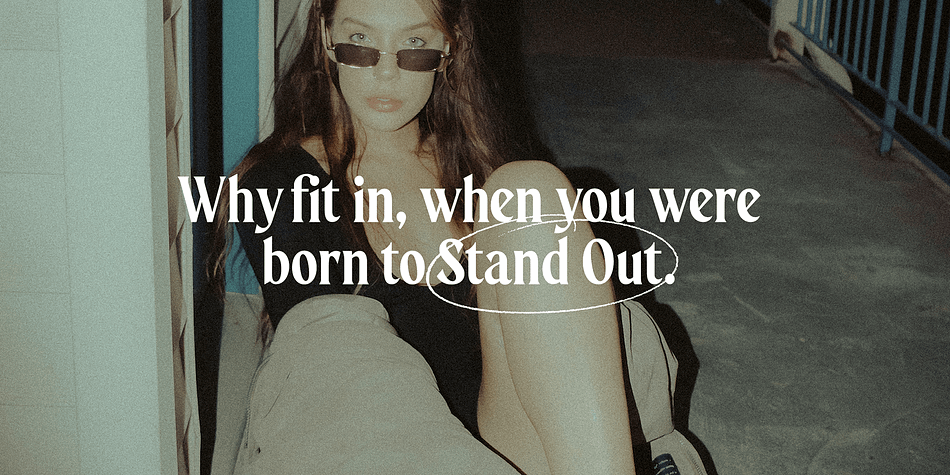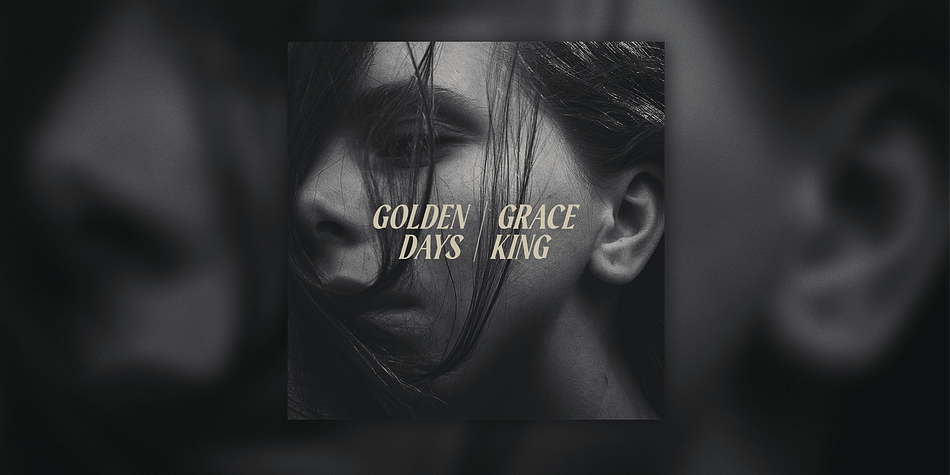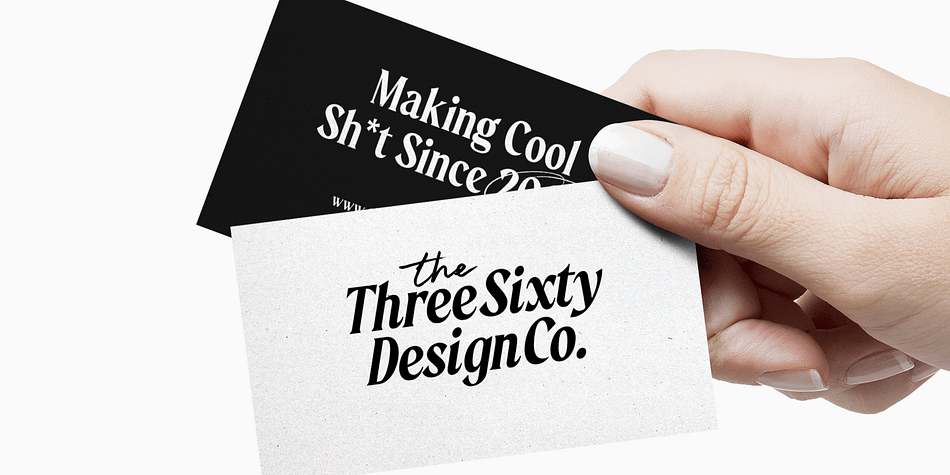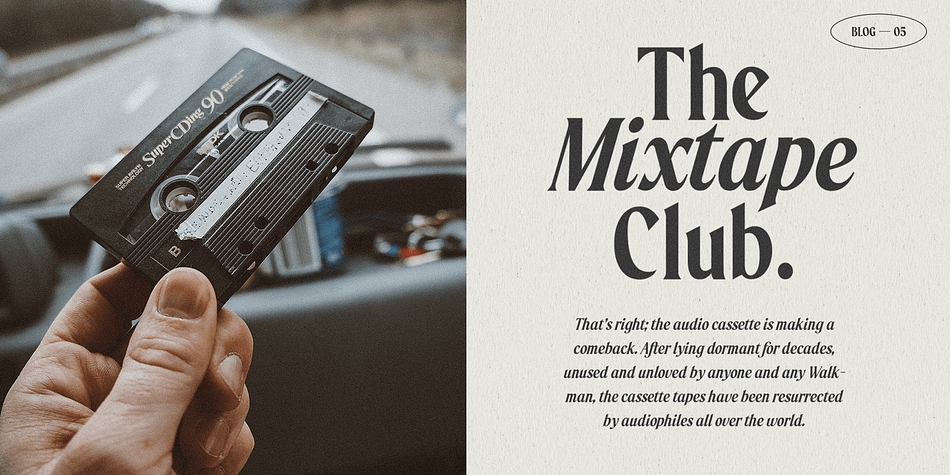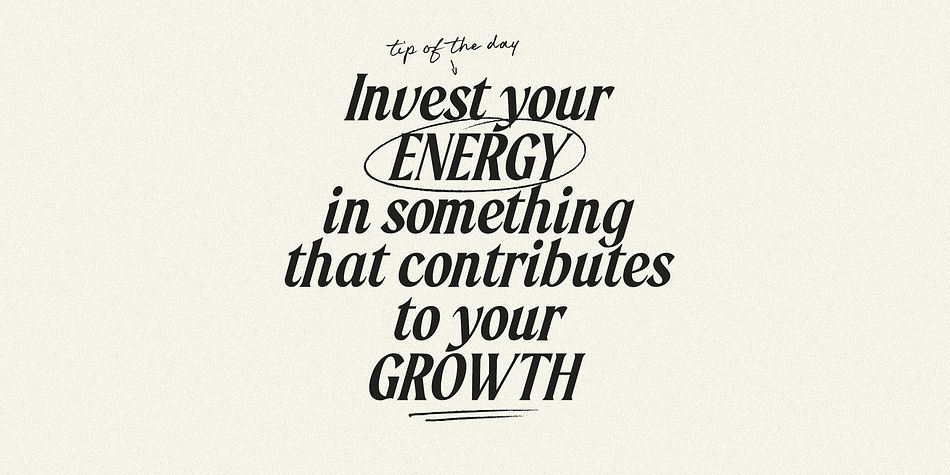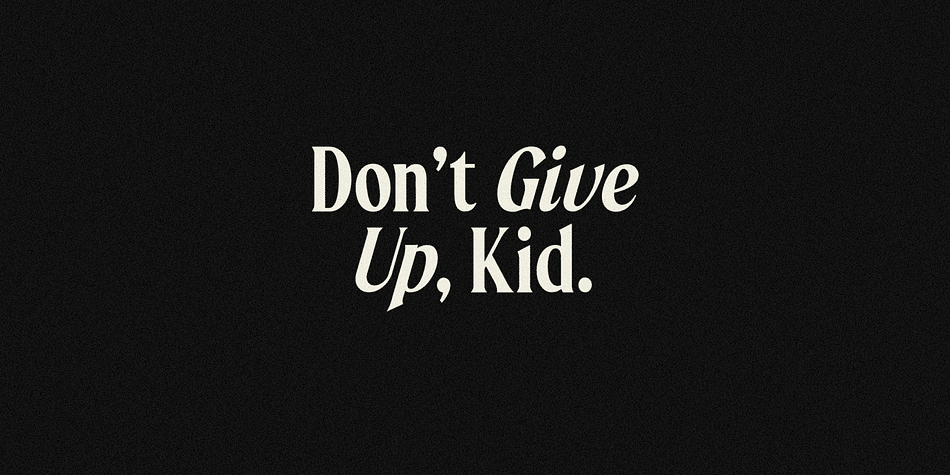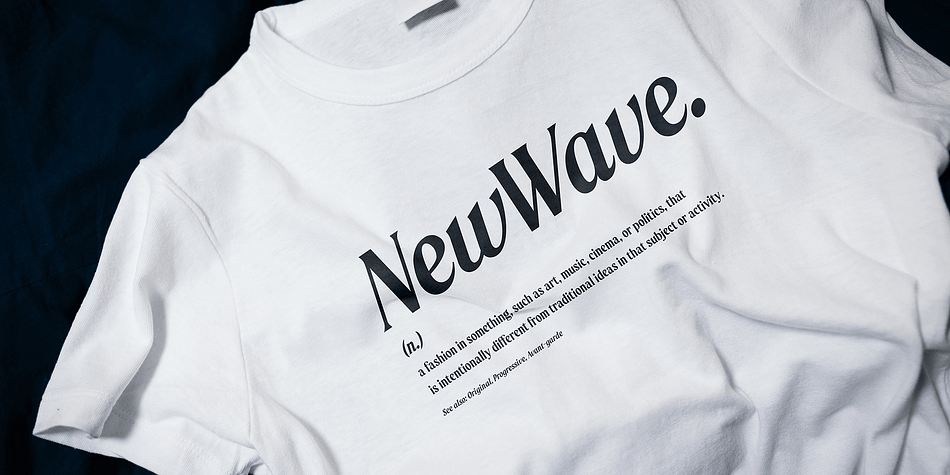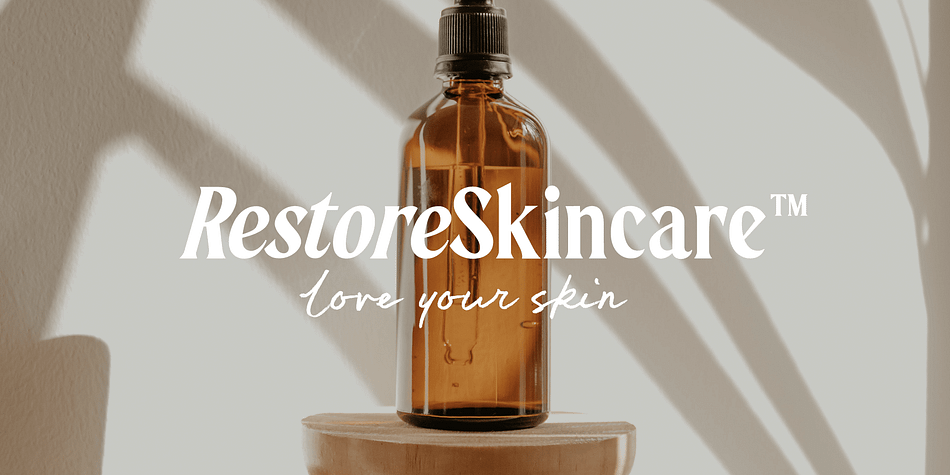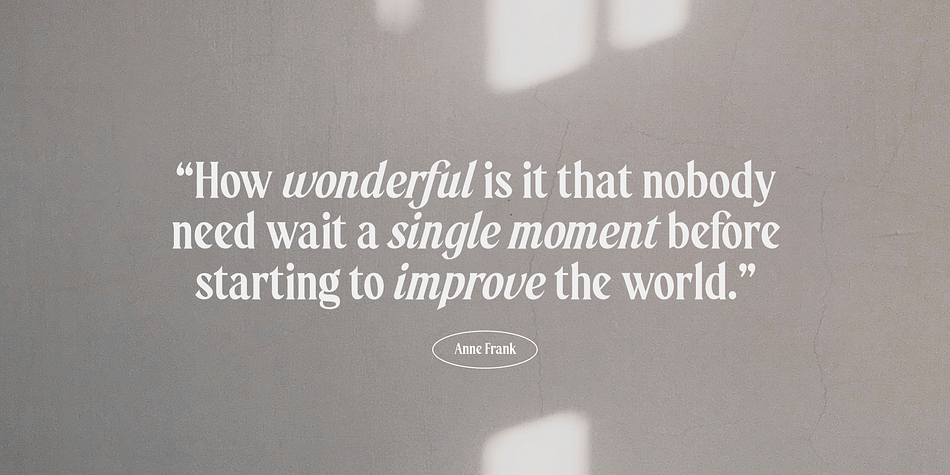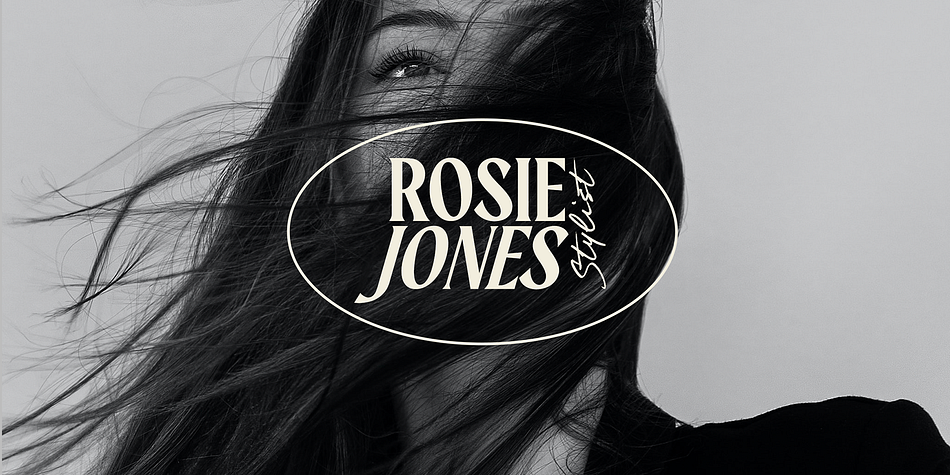
Morning Memories
Designed by Sam Parrett, Morning Memories is a multiple classification font family. This typeface has five styles and was published by Set Sail Studios.
Introducing the Morning Memories Serif & Script. It’s a nostalgic nod to those cherished memories of golden years gone by, but also a revived hope in creating new moments to treasure.
At the forefront is the Morning Memories Serif - a bold, condensed, striking serif which includes a regular and true italic version, perfect for bold statements, logo designs and header text.
Also included in the Morning Memories Script, a fast hand, pencil-textured handwritten font, perfect as a secondary font to the serif, standout words, and logo taglines. Includes 36 ligatures (unique double and triple letter combinations), to help recreate naturally flowing handwritten letterforms.
A bonus Morning Memories Doodles font is also included, which contains 26 handrawn ovals, underlines and arrows - perfect for highlighting your serif text and adding a personal touch.